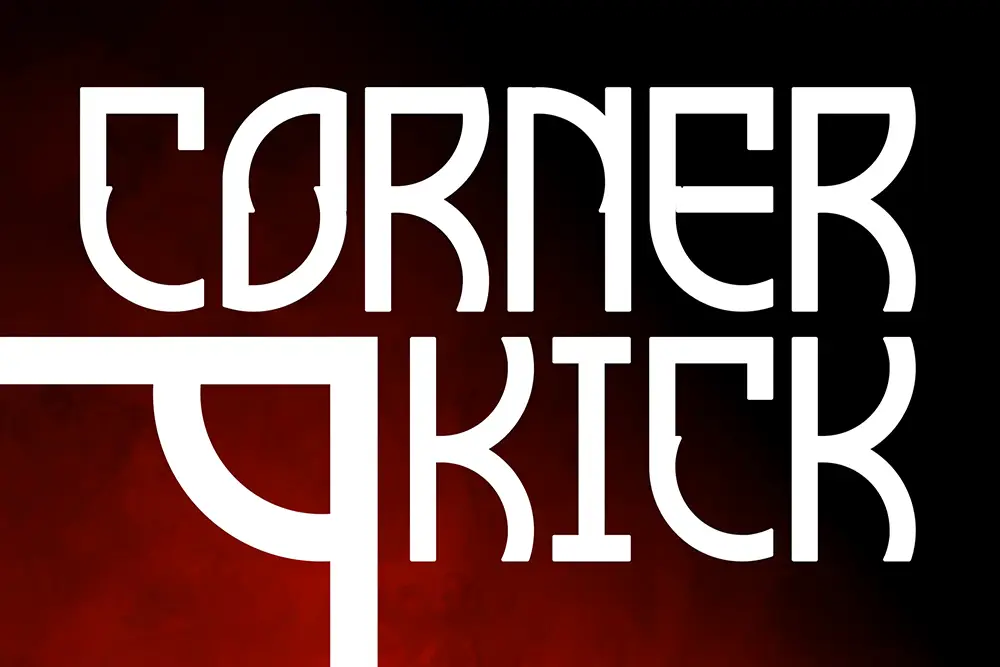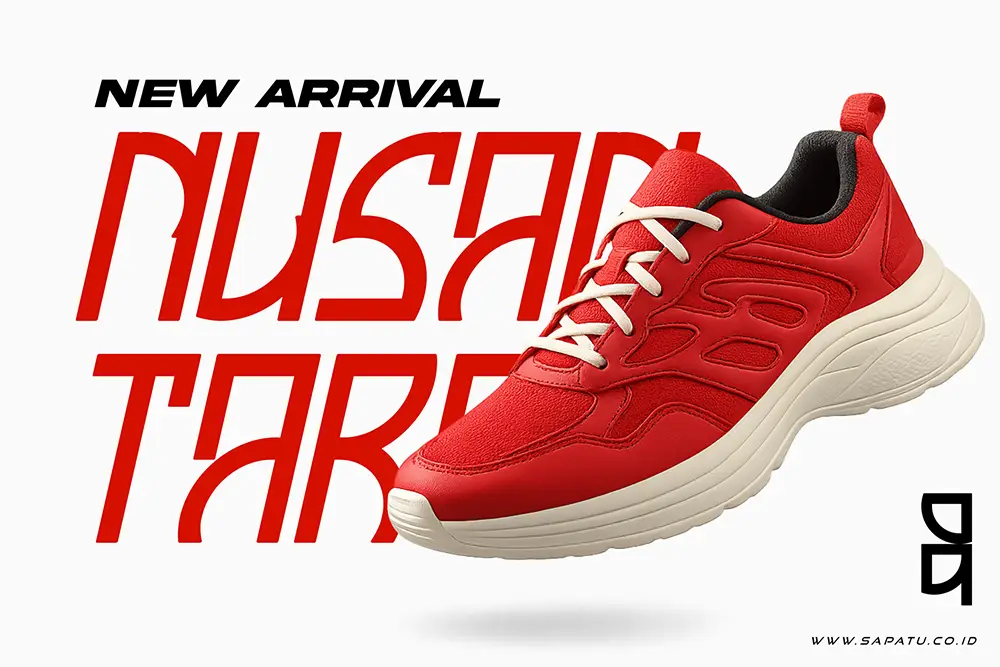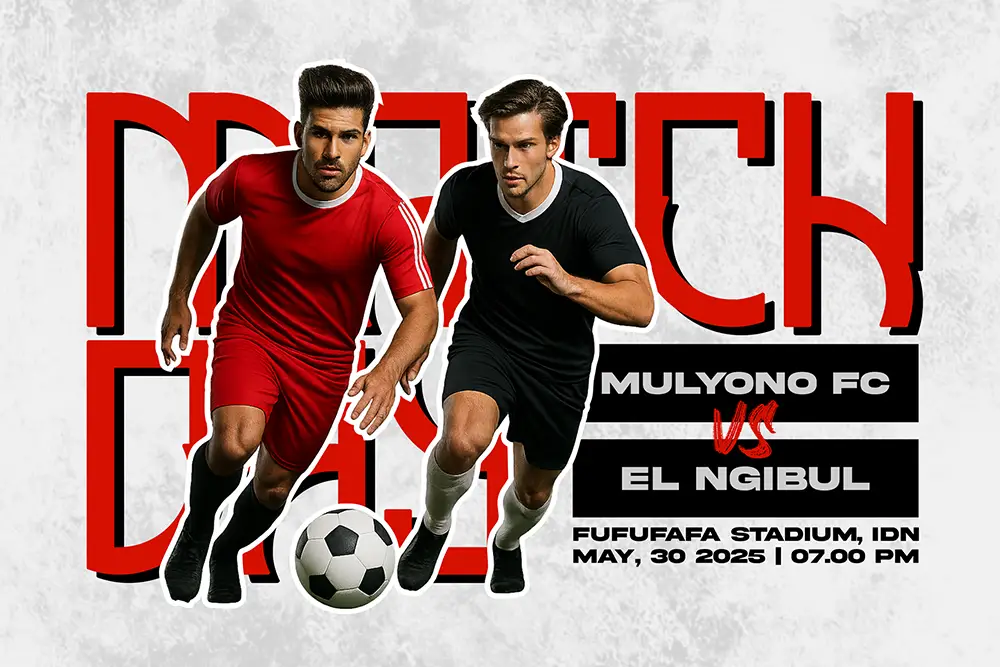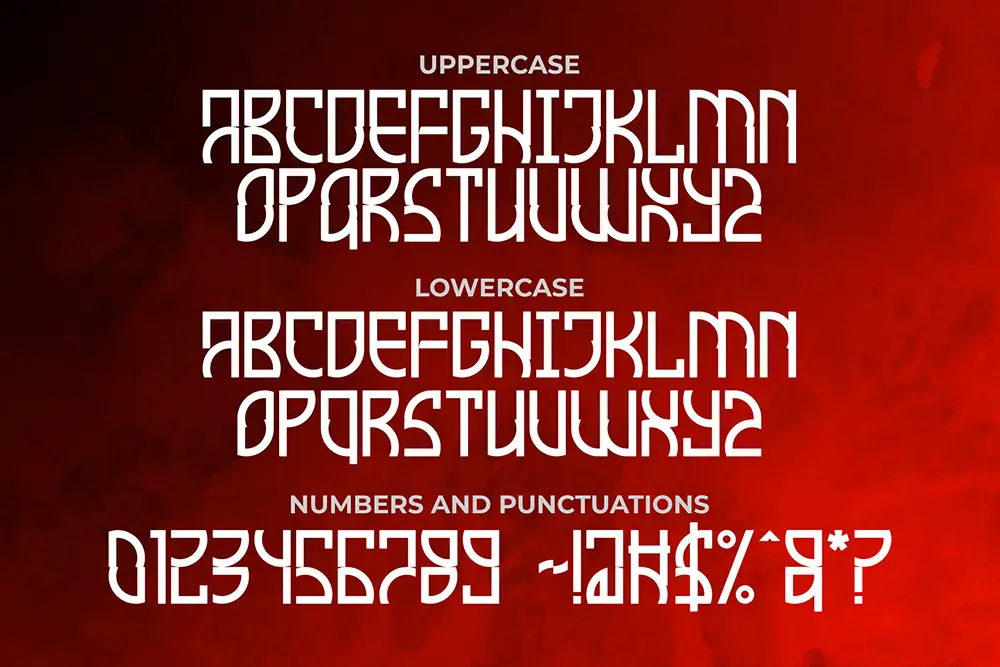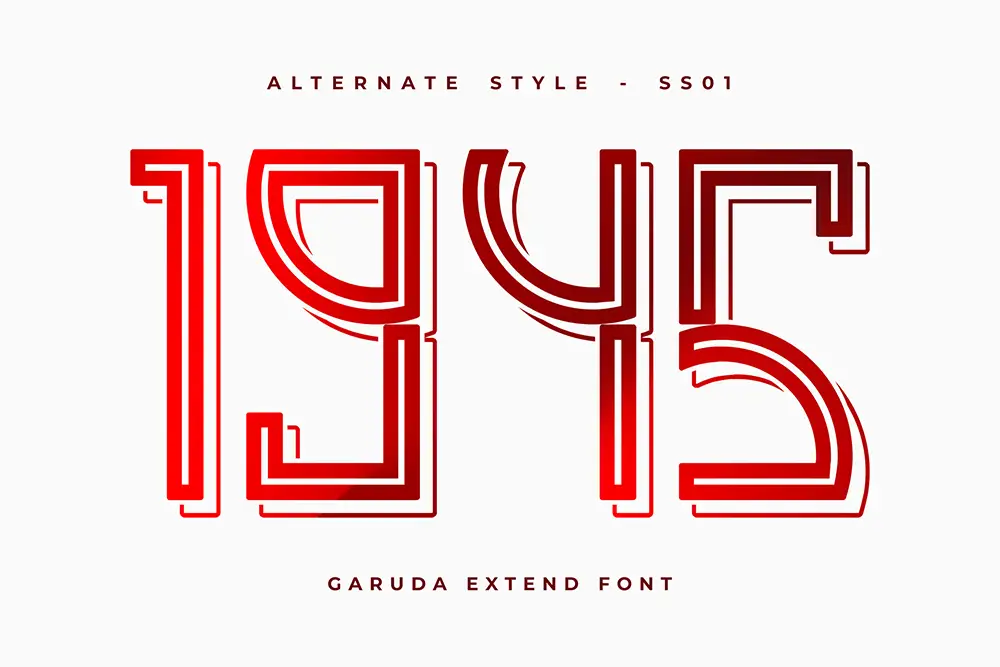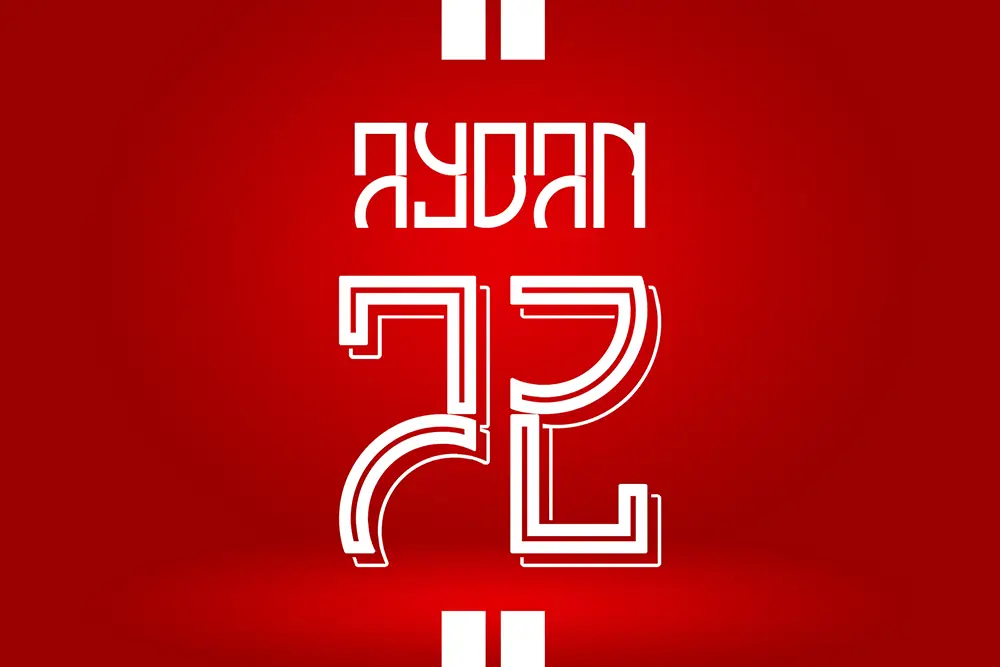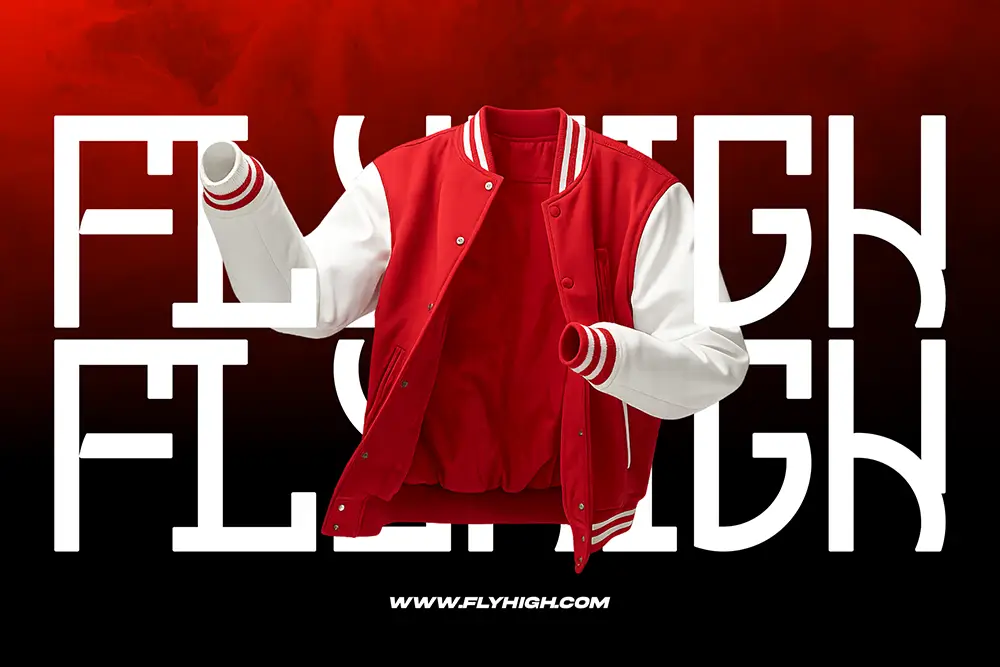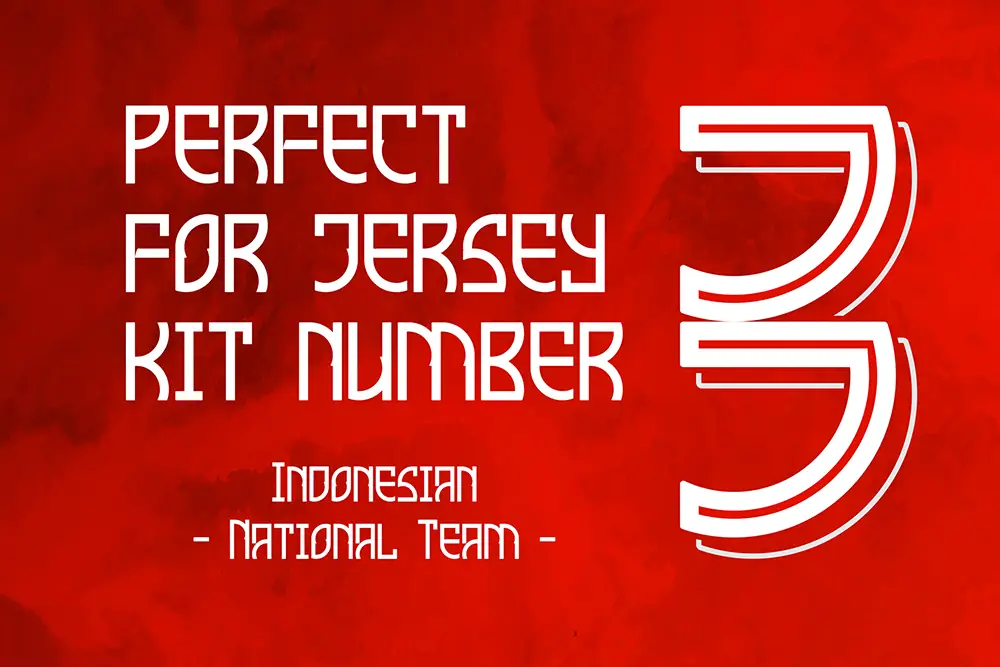
Typography plays a defining role in sports, esports, and modern branding. That’s why Garuda Extend – Sport Display Font was designed to bring maximum impact, power, and clarity to your creative projects. With extended letterforms, geometric strength, and stylistic alternates, this sport display font is the ultimate choice for designers who want their logos, posters, and event branding to look bold, modern, and unforgettable.
From athletic campaigns to digital esports tournaments, Garuda Extend ensures your designs deliver strength and motion every time.
Sport Display Font with Extended Energy
Unlike traditional typefaces, Garuda Extend is built as a sport display font with an extended style that instantly communicates energy and authority. Its sharp edges and proportional balance create a futuristic yet professional tone, making it perfect for event posters, digital branding, and large-scale headlines.
If you’re searching for a typeface that conveys strength, agility, and precision, Garuda Extend is the sport display font your design toolbox needs.
Key Features of Garuda Extend – Sport Display Font
Designers value function as much as style. Here’s what makes Garuda Extend – Sport Display Font stand out:
- Uppercase & Lowercase: A complete alphabet set for versatile branding.
- Multilingual Support: Extended Latin characters for international design use.
- Extended Width Style: Perfect for headlines, banners, and bold logos.
- Stylistic Alternates: Add variation and dynamic energy to your typography.
- Sport-Inspired Edge: Crafted to fit athletic, esports, and modern event themes.
Why Designers Love Garuda Extend
Creative professionals choose Garuda Extend because it combines the best qualities of a sport display font: impact, readability, and creative flexibility.
Here’s why it’s loved worldwide:
- Powerful Branding: Its bold extended shapes make logos and wordmarks unforgettable.
- Clarity at Scale: From stadium banners to esports overlays, it stays perfectly readable.
- Professional Grade: Ideal for corporate sponsorships, athletic events, and digital competitions.
Garuda Extend for Logos and Sports Branding
Sports branding thrives on energy and confidence. Garuda Extend delivers both. As a sport display font, its bold extended structure makes it perfect for team logos, athletic brand wordmarks, and esports tournaments.
Use Garuda Extend to design a memorable identity that feels fast, powerful, and modern. When paired with a brush font like Roadpunks Handbrush Typeface, it brings balance between boldness and raw energy—ideal for merchandise, posters, and digital media.
Garuda Extend for Posters and Headlines
Posters demand attention in seconds, and Garuda Extend guarantees visibility. This sport display font is designed for large titles, promotional billboards, event graphics, and bold campaigns.
Its extended style dominates any layout, ensuring your message won’t be overlooked. Whether for a championship event, a fitness promotion, or an esports live stream, Garuda Extend makes every headline stronger.
Using Garuda Extend in Esports and Digital Media
Esports design requires modern, dynamic visuals. Garuda Extend fits perfectly as a sport display font for gaming overlays, YouTube thumbnails, Twitch banners, and event logos.
Its multilingual support ensures usability across international audiences. When combined with Realistic Theory Modern Brush Font, designers can add expressive, hand-brushed intensity to digital layouts—balancing structured strength with raw motion.
- Character Set: Uppercase, Lowercase, Numbers, Punctuation
- Category: Sport Display Font
- Best Uses: Logos, Posters, Esports, Branding, Advertising, Banners
Font Pairing Suggestions
To unlock the full potential of Garuda Extend, try pairing it with these complementary typefaces:
- Kastroz Luxury Vintage Serif Font – balances Garuda Extend’s futuristic energy with timeless sophistication.
- Roadpunks Handbrush Typeface – adds raw brush-stroke energy that pairs beautifully with Garuda Extend’s structured power.
- Realistic Theory Modern Brush Font – creates a striking mix of bold sports strength and organic brush dynamism, perfect for posters and esports campaigns.
Pairing Garuda Extend with these fonts allows designers to create branding that feels bold, authentic, and visually diverse.